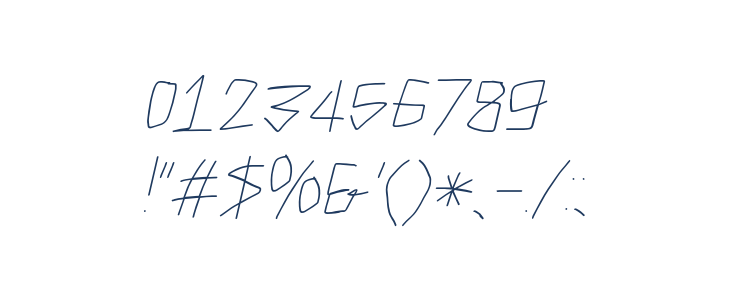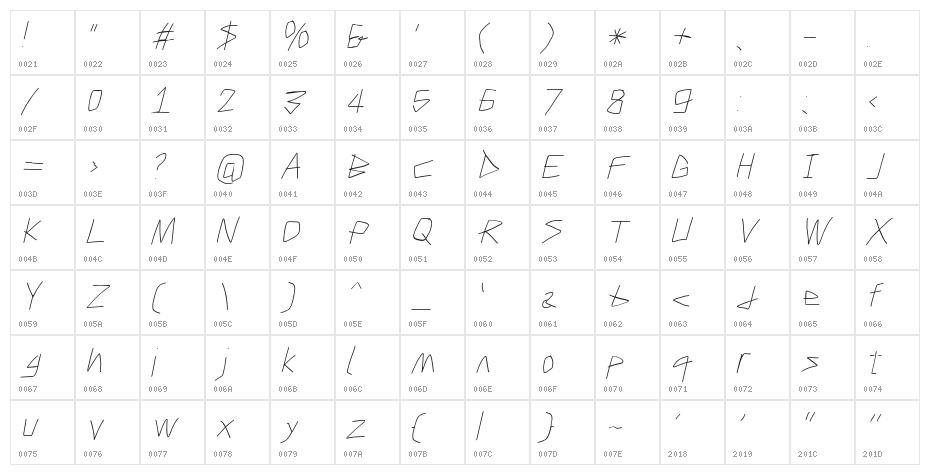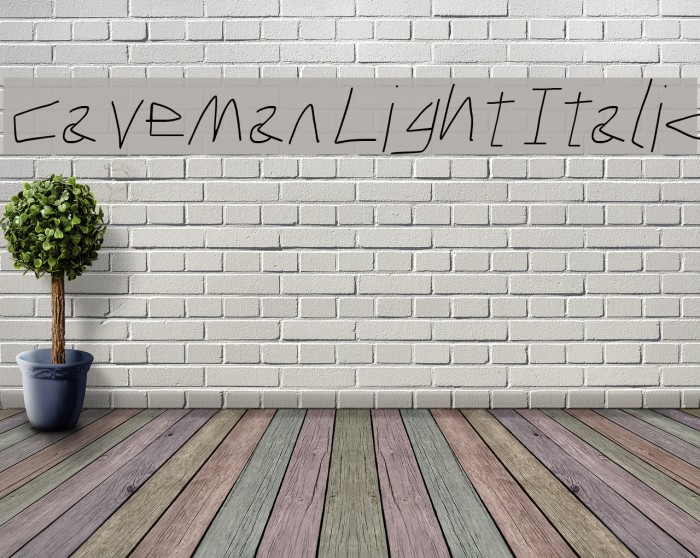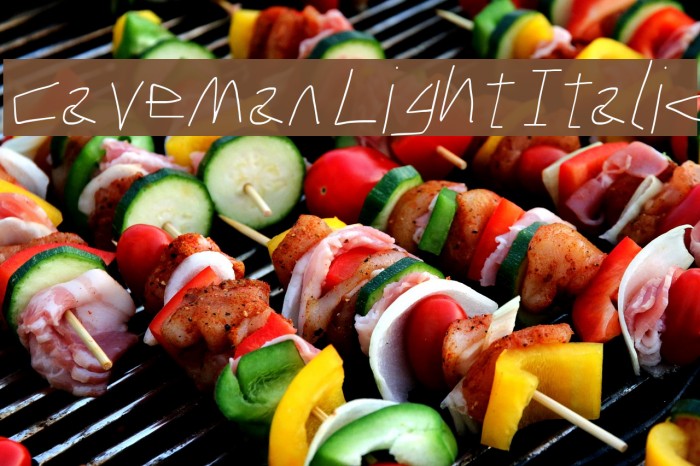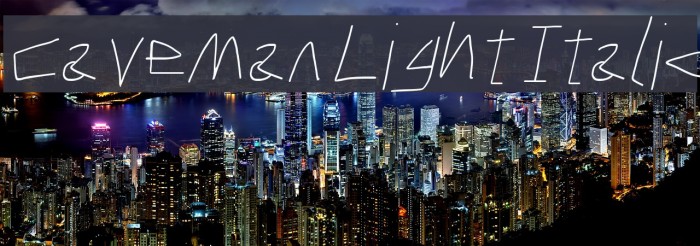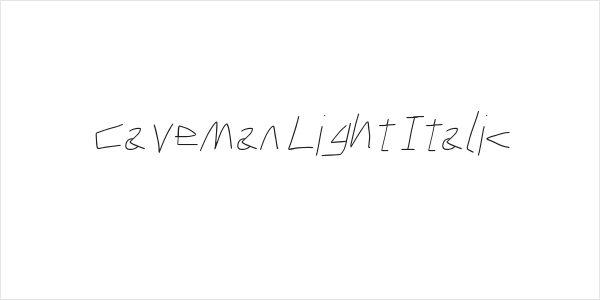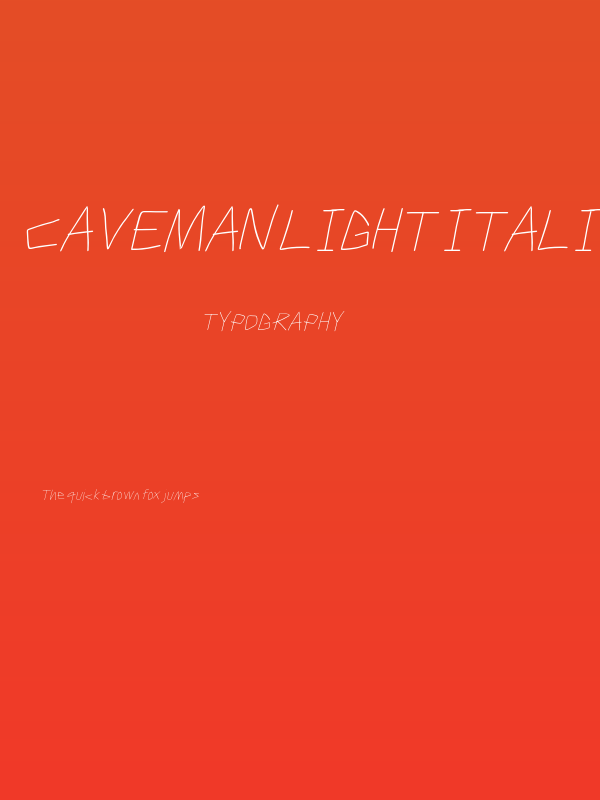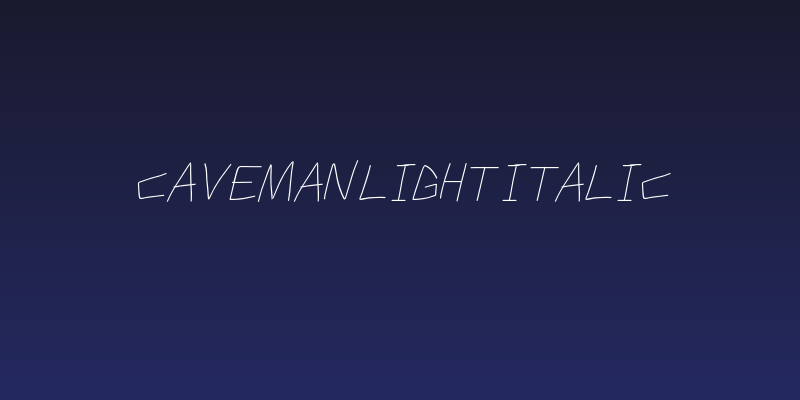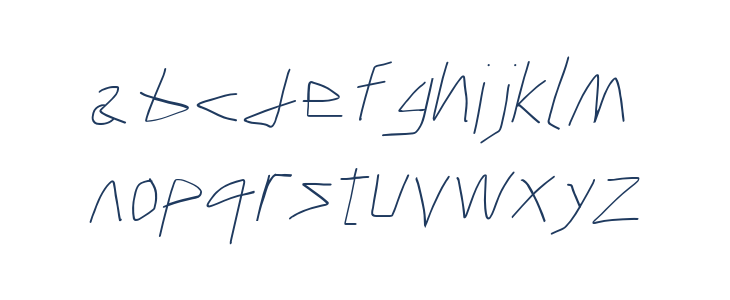
Caveman Light Italic Font
Caveman Light Italic Description
This font exhibits a playful, hand-drawn style reminiscent of primitive or ancient writing. The characters are irregular and slightly tilted, giving an informal and casual appearance. The strokes are thin and uneven, adding to the rustic charm. Uppercase and lowercase letters maintain a consistent style, with angular and jagged edges that suggest a sense of spontaneity and creativity. Numbers and special characters follow the same design principles, ensuring a cohesive look across all glyphs. The overall aesthetic is unique and eye-catching, making it suitable for projects that require a distinctive and unconventional typeface.
| Use Case | Logos, Posters, Creative projects |
| Proposed Projects | Ideal for creative projects such as children's books, posters, logos, and any design that seeks a whimsical or rustic touch. |